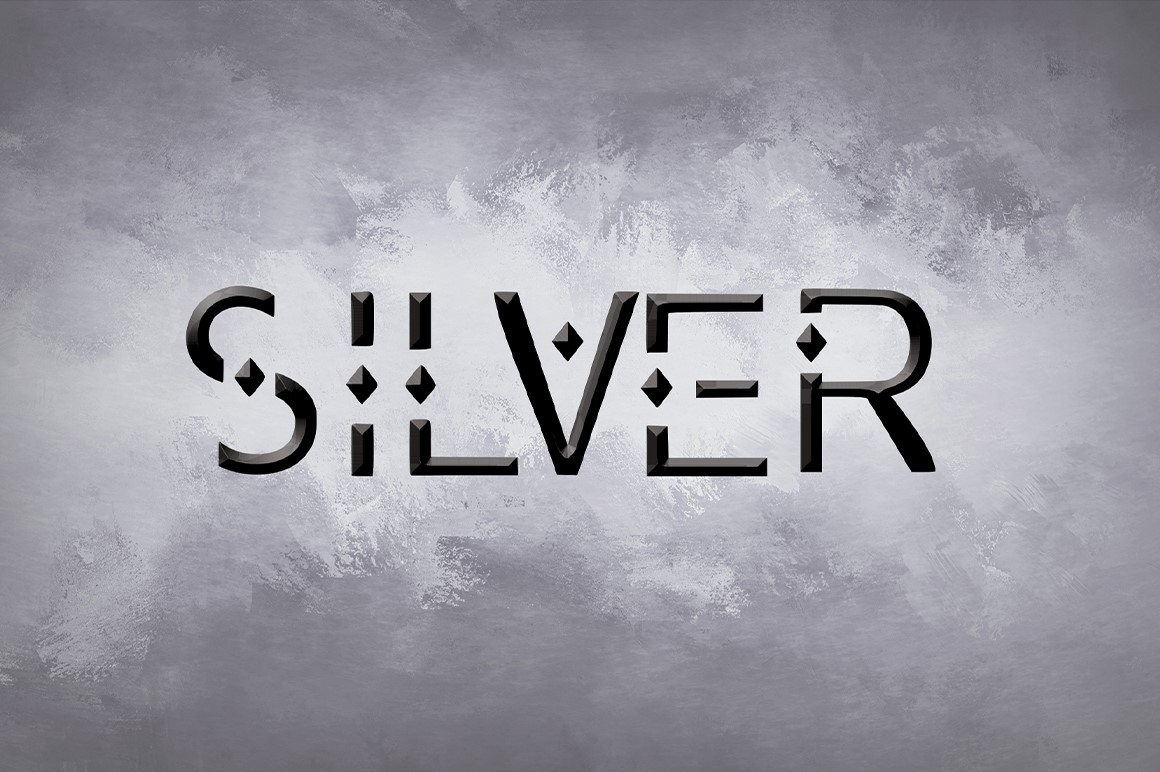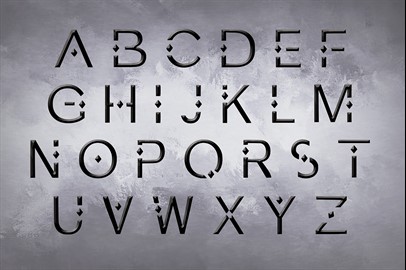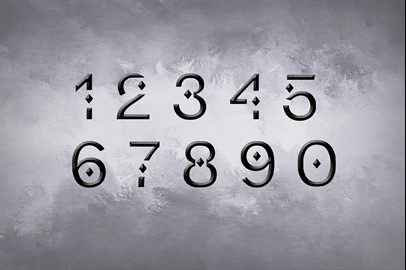
SILVER - a Metallic Typeface
A simple yet elegant font. Silver is a modern typeface with a style that makes it perfect for use in your design projects.